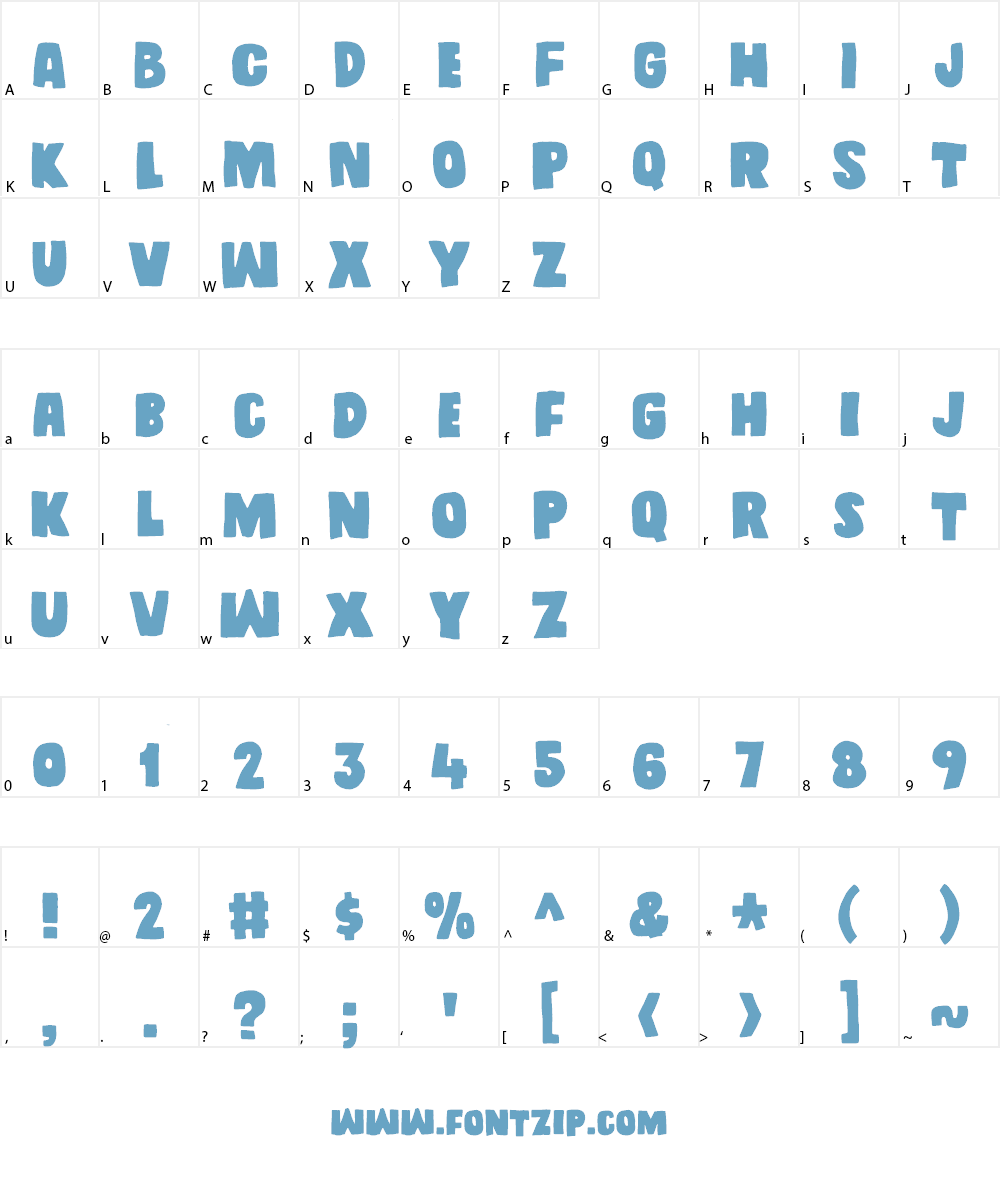
“Every home should have a mom in love, and a daddy in space” as Kashmir, the danish rockband sings.
Comes with contextual alternates and multiple language support in two versions: regular and shadow